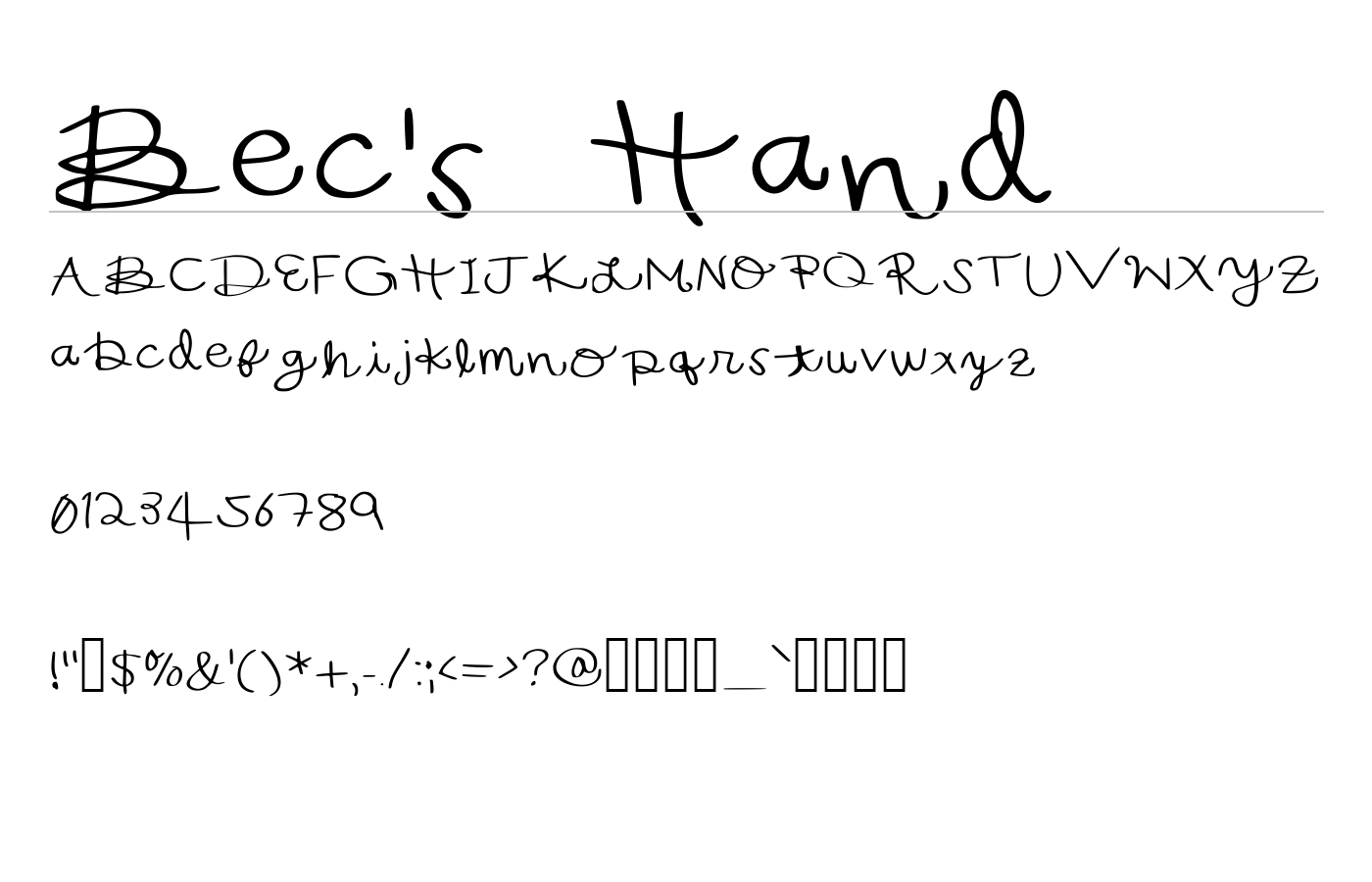
Bec's Hand Font is a playful, handwritten script featuring slender, slightly uneven strokes that give it a casual and friendly feel. Its tall, airy letterforms and whimsical details make it ideal for creative projects like personal branding, informal invitations, or children’s content where a warm, approachable style is desired. This font works best in display use, adding a touch of personality and charm without overwhelming the design.
Bec's Hand Font
About Bec's Hand Font